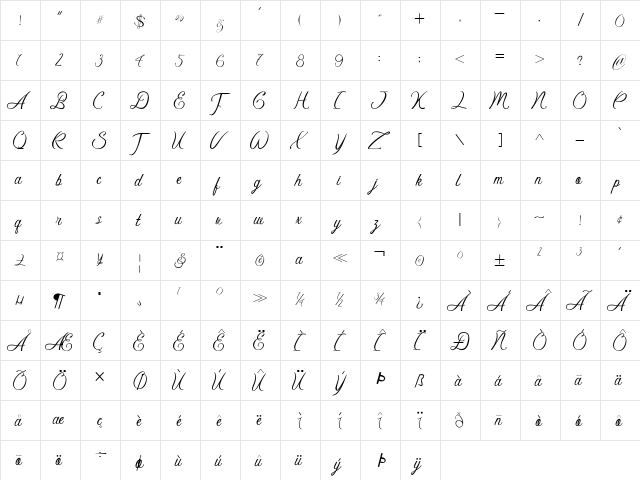
frangfurt of bizantium Regular
Design Context for frangfurt of bizantium Typeface
frangfurt of bizantium is a composed and adaptable typeface that performs quietly and consistently across a wide range of design contexts.